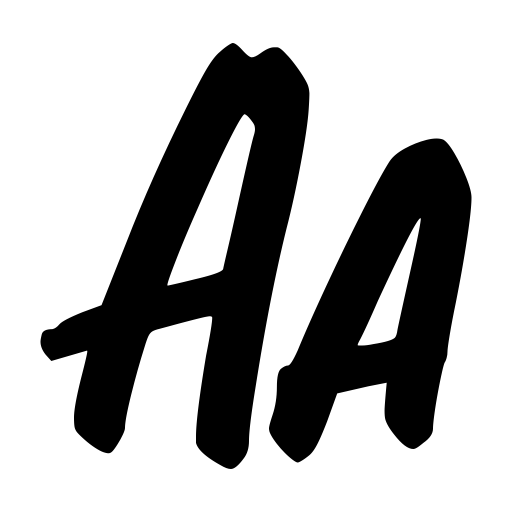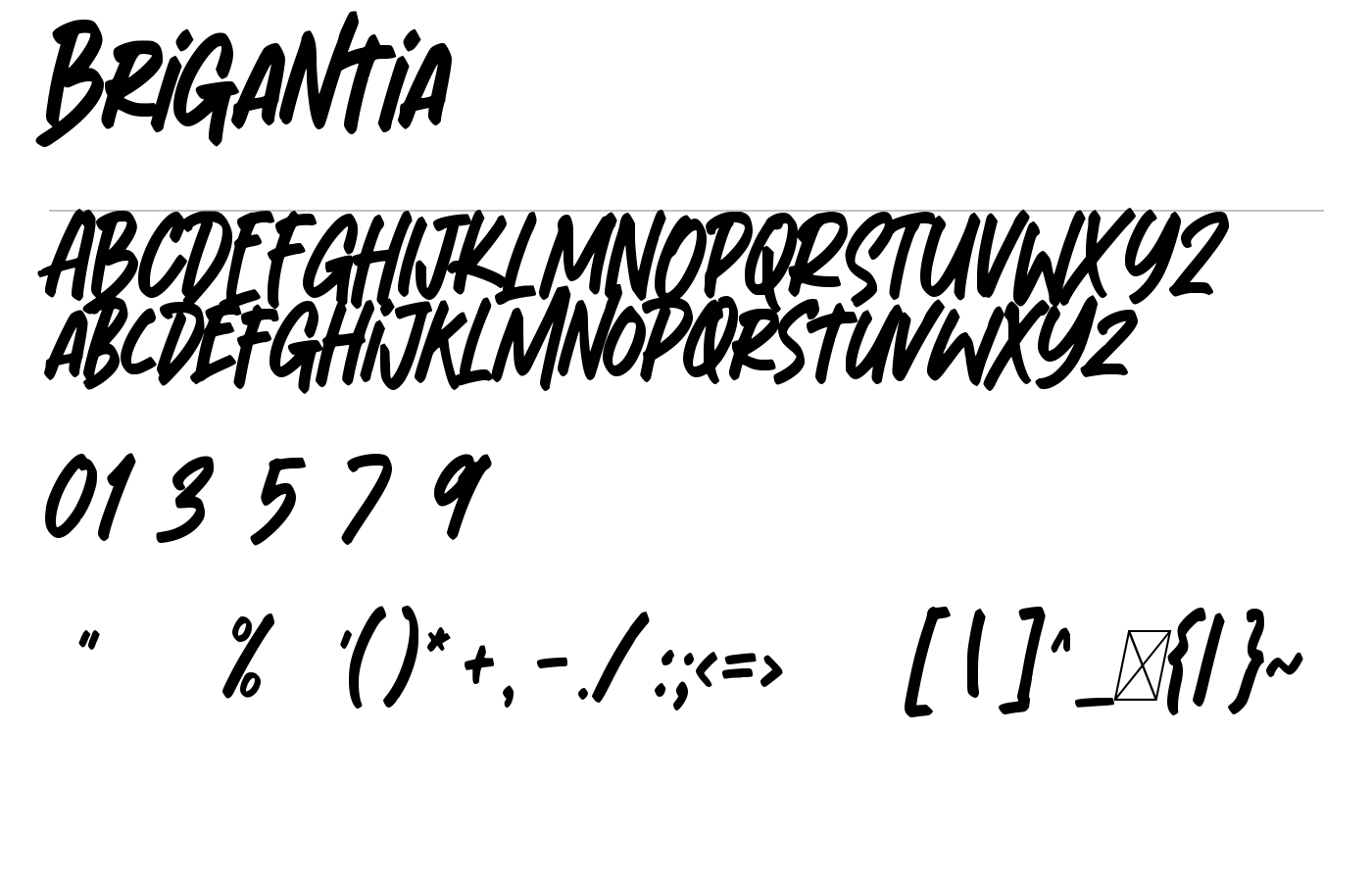
Brigantia is a bold, energetic script font with a hand-brushed style that feels dynamic and personal. Its lively, slightly condensed letterforms and casual, irregular strokes make it perfect for creative, youthful branding, posters, and designs that want to convey spontaneity and authenticity. This font works well in headlines and display uses where a strong, informal character is desired.
Brigantia Font
About Brigantia Font